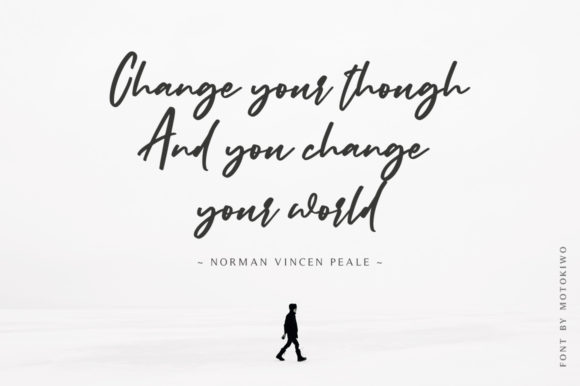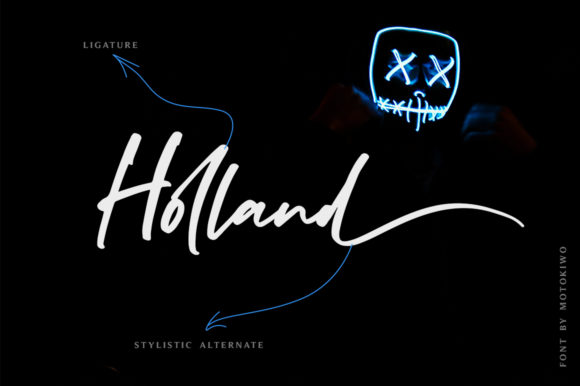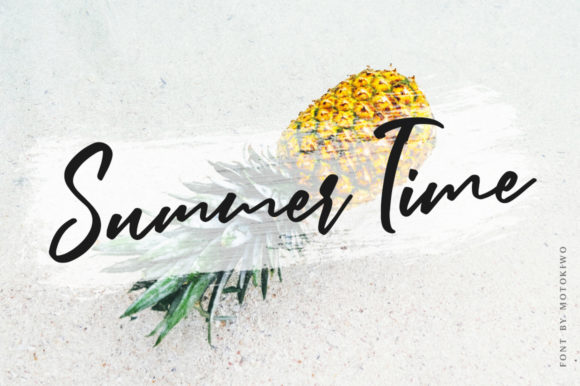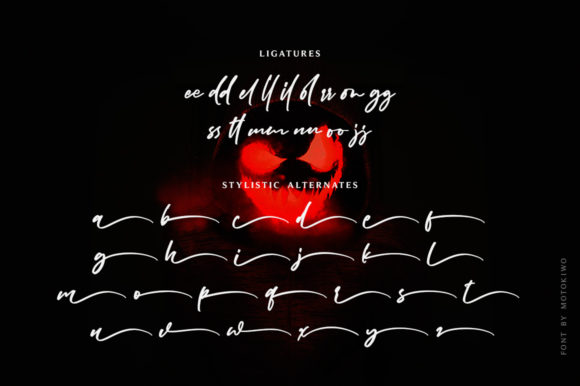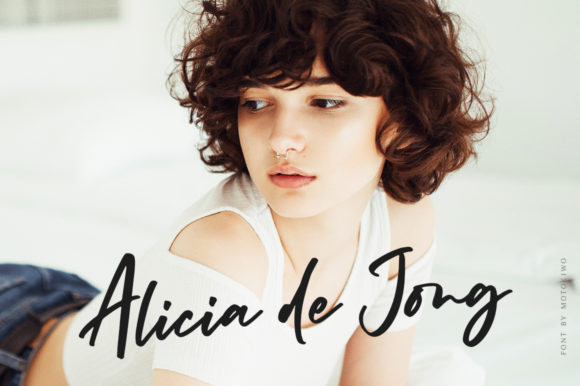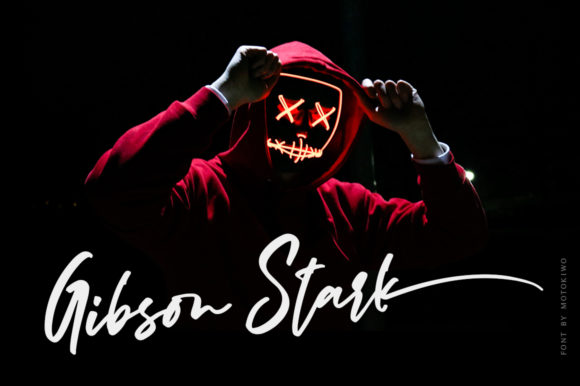
Billybond Font: Elevate Your Designs with Elegance and Sophistication
In the world of typography, fonts play a crucial role in conveying the tone and personality of a design. For designers and crafters looking to add a touch of elegance and sophistication to their projects, the Billybond Font is an exceptional choice. This bold signature font is designed to make a statement, featuring stunning ligatures, ending alternates, and gorgeous swashes that are sure to captivate your audience.
What Makes Billybond Font Stand Out?
Billybond Font is not just another font; it’s a design element that can elevate your projects to new heights. Here are some of its standout features:
- Bold Signature Style: Billybond Font boasts a bold and confident style that’s perfect for making a statement. Its unique character set is designed to add a touch of sophistication to any design.
- Stunning Ligatures: Ligatures are a key feature of the Billybond Font, providing a beautiful and fluid connection between letters. This creates a sense of continuity and flow, making your text more readable and visually appealing.
- Ending Alternates: The font comes with a range of ending alternates, allowing you to add variety and creativity to your designs. This feature enables you to experiment with different looks and find the perfect fit for your project.
- Gorgeous Swashes: Swashes are decorative flourishes that can add a touch of elegance to your designs. Billybond Font features a range of stunning swashes that are all PUA (Private Use Area) encoded, making them easy to access and use.
PUA Encoding: What Does it Mean?
Tips for Using Billybond Font
To get the most out of Billybond Font, here are some tips to keep in mind:
- Use it Sparingly: While Billybond Font is stunning, it’s best used sparingly. Use it for headings, titles, or key phrases to add emphasis and create visual interest.
- Experiment with Ligatures: The ligatures in Billybond Font are a key feature. Experiment with different combinations to find the one that works best for your design.
- Don’t Forget the Swashes: The swashes in Billybond Font are a beautiful feature. Don’t be afraid to use them to add a touch of elegance and sophistication to your designs.
In conclusion, Billybond Font is an exceptional choice for designers and crafters looking to add a touch of elegance and sophistication to their projects. With its bold signature style, stunning ligatures, ending alternates, and gorgeous swashes, it’s the perfect font for making a statement. So why not give it a try and see how it can elevate your designs?